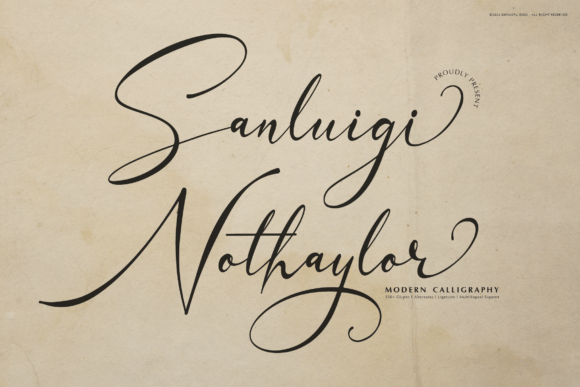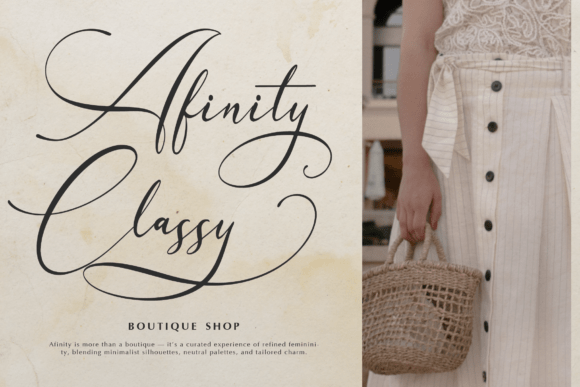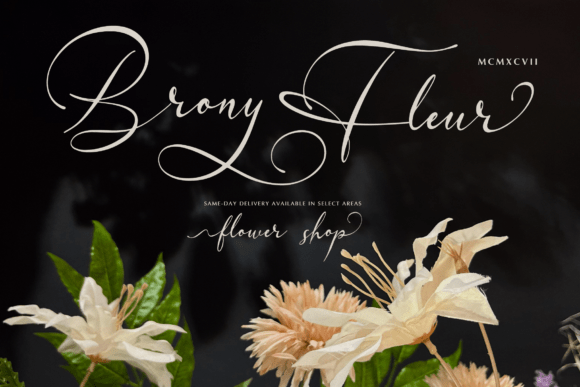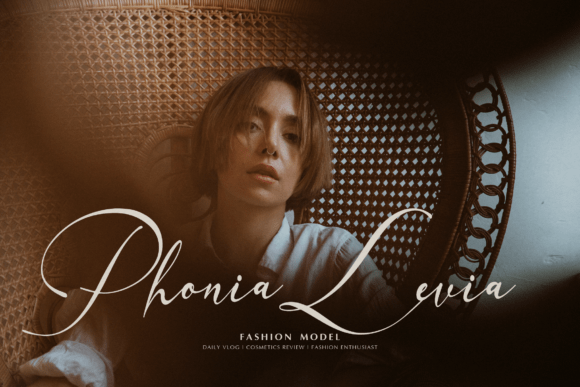
Sanluigi Nothaylor Font: Elegant Calligraphy for Wedding & Logo Design
About the Sanluigi Nothaylor Font
Let us introduce you to Sanluigi Nothaylor Font, where timeless design meets modern craftsmanship. Sanluigi Nothaylor is a modern calligraphy font that brings sophistication and charm to your designs. Featuring graceful curves, smooth ligatures, and over 350 glyphs, it’s the perfect choice for projects that need a handwritten, romantic touch. Whether you’re designing wedding invitations, logos, stationery, or elegant branding materials, this font will add a timeless, luxurious feel to your work.
Sanluigi Nothaylor Font Usage Examples
Sanluigi Nothaylor Font Example